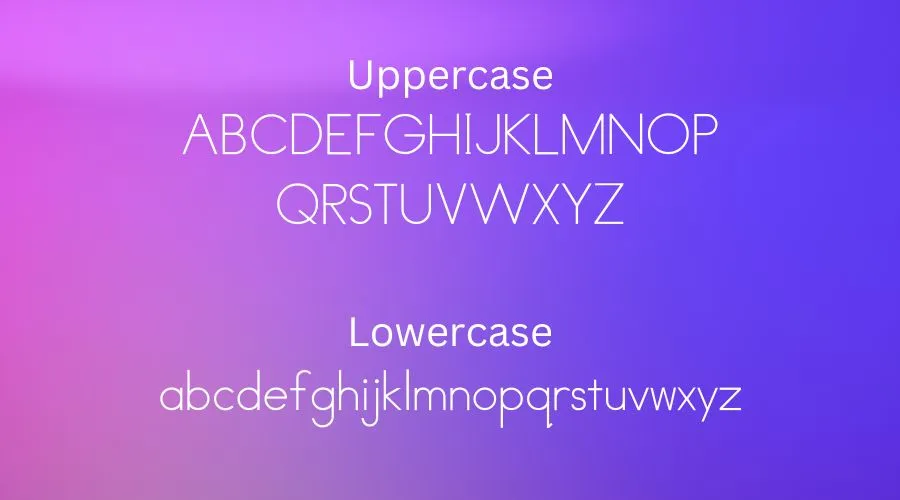
ABC Print Font
About ABC Print Font
The ABC Print font was designed by Sandrine Nugue. There is no doubt that this Sans-Serif font has a flexible character that gives the perfect result. Many alternatives can be combined with this font.
This typeface is very popular among designers because of its smooth and unique shape, and it is a typeface that people use for their own purposes. In HTML and CSS, these fonts are listed as design elements.
The contrast goes back to the usual engravings using steel type. And the manageable weight suits the name, brand, and function. You may easily combine this font with calibri font. This family of text styles continues to grow in value for use in projects like this one. So 10pt.